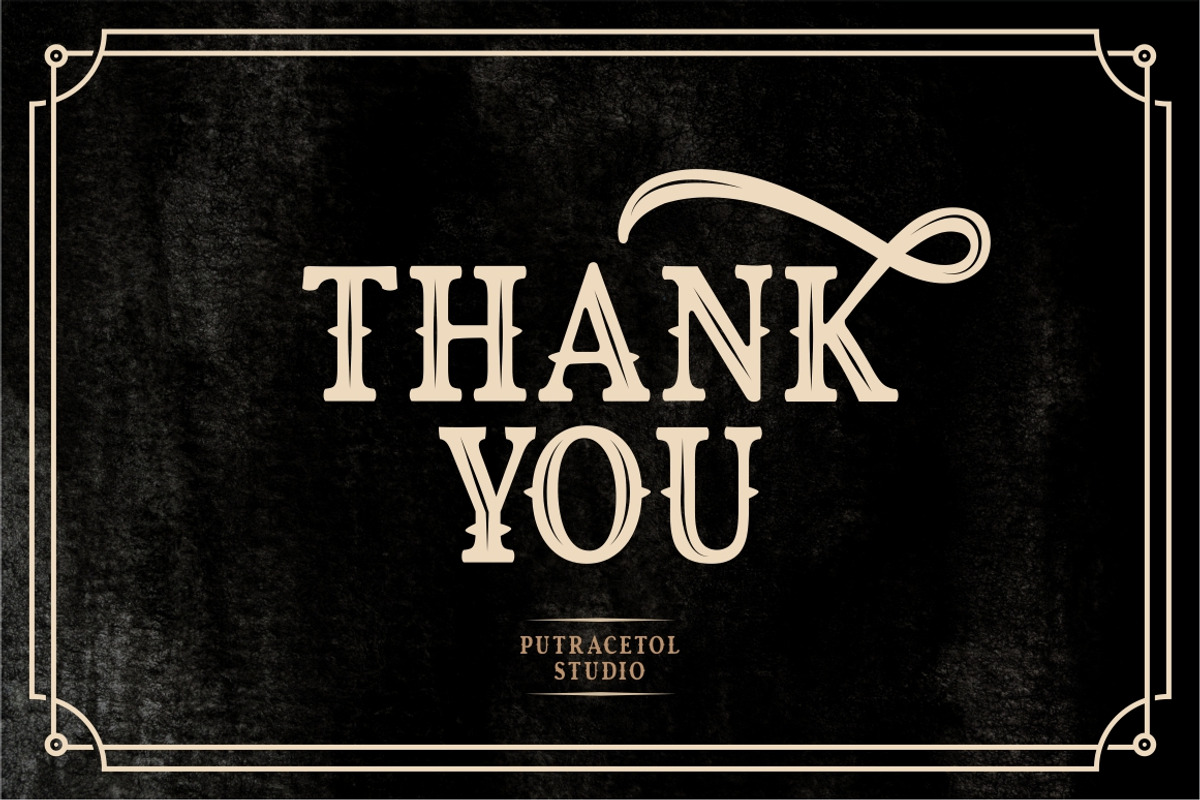
Royal King
ROYAL KING
Introducing ROYAL KING - a Old Vintage Display Typeface. Come up with decorative and clean style.
ROYAL KING is great for any kind of display purpose from logos, Tshirt, apparel, quote, handwritten quotes, product packaging, tittle header, poster, merchandise, social media, labels, branding & greeting cards.